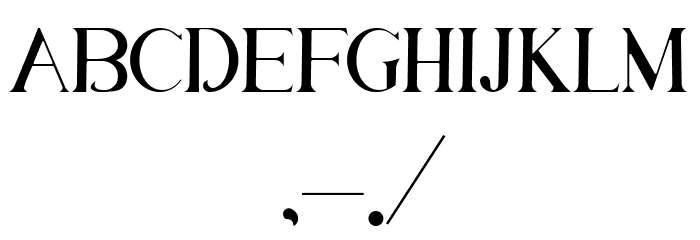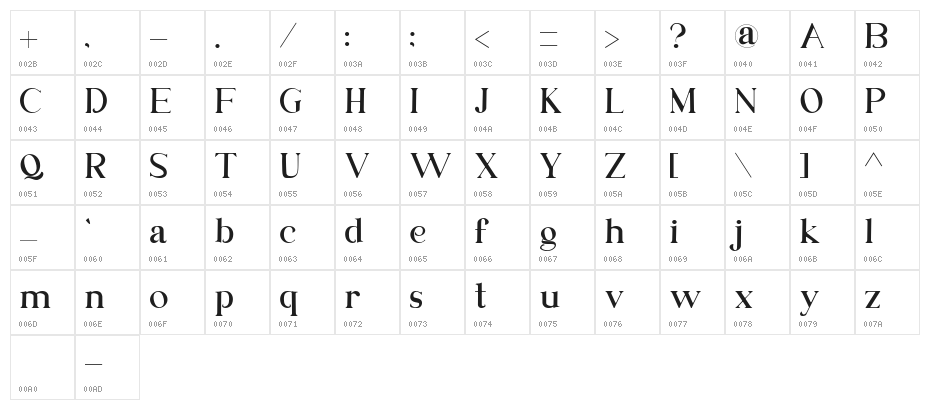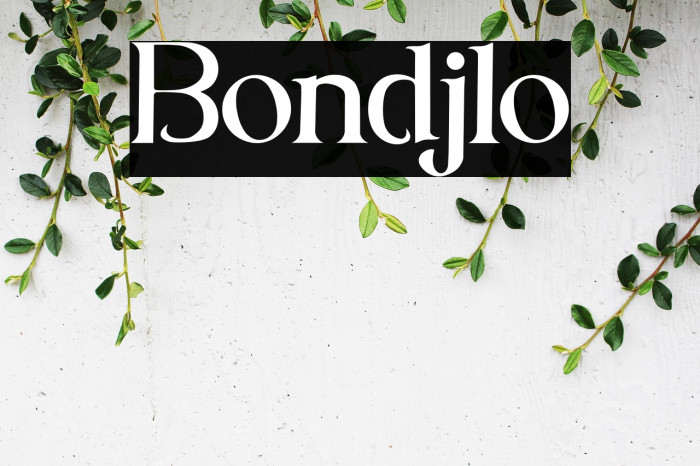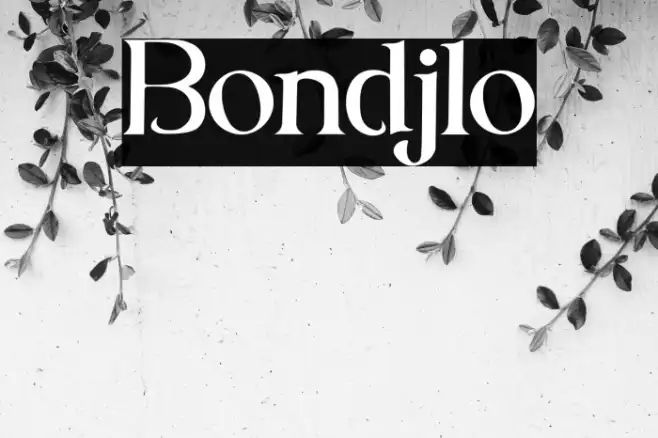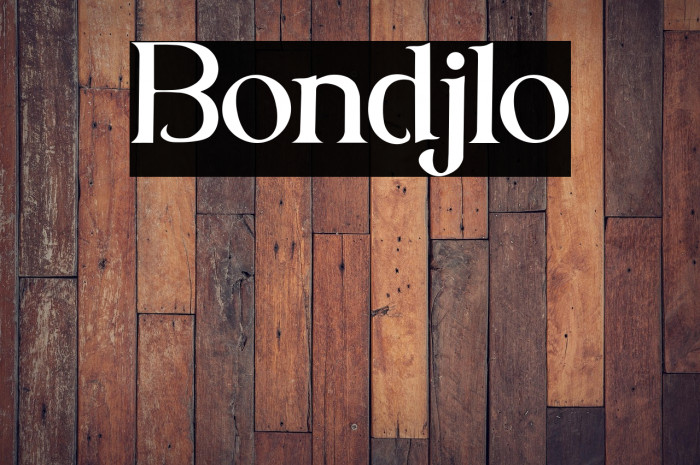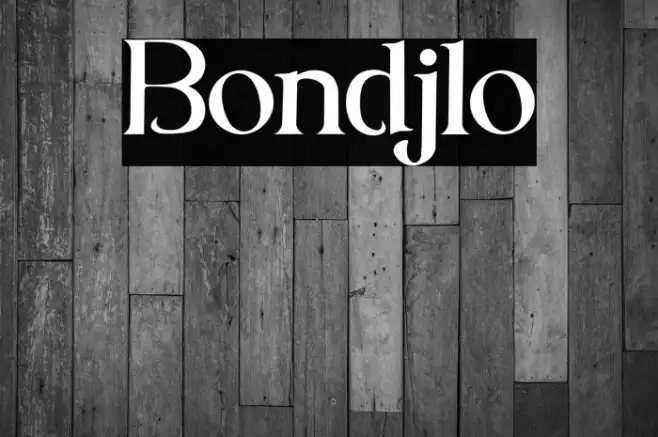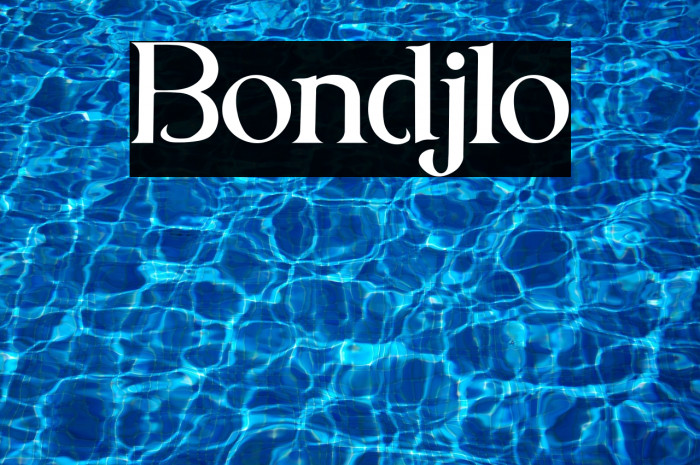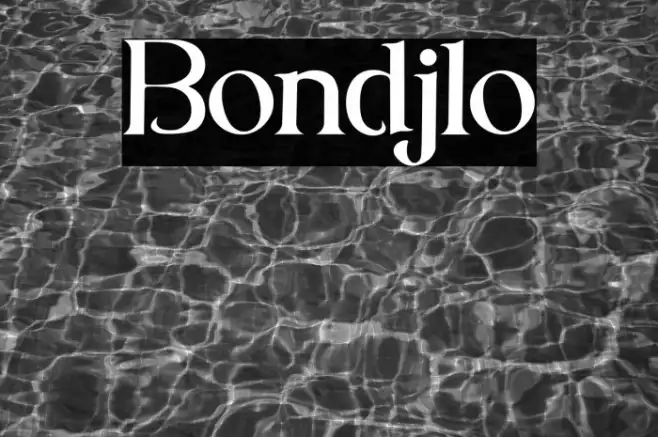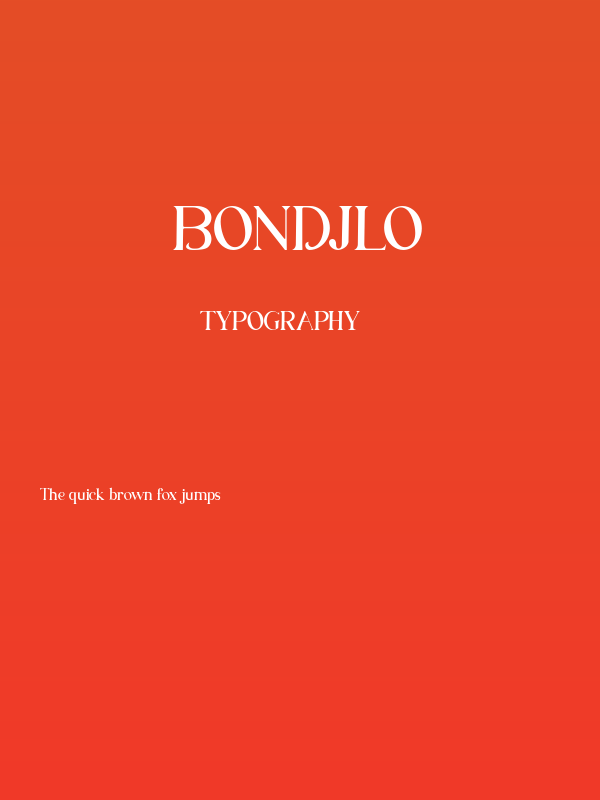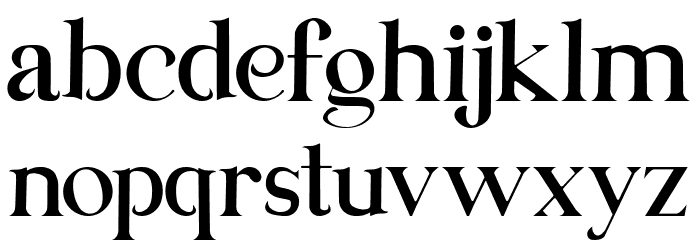
Bondjlo Font
Bondjlo Description
This font exhibits a classic serif style with a modern twist. The uppercase letters are elegantly proportioned, featuring sharp serifs and a slight contrast in stroke thickness. The lowercase letters maintain a consistent style, with some characters like 'g' and 'y' having distinctive tails that add a unique flair. The numerals are clear and legible, matching the overall aesthetic of the alphabet. Special characters are designed to complement the letterforms, maintaining the font's cohesive look. The overall appearance is sophisticated, making it suitable for a variety of design applications.